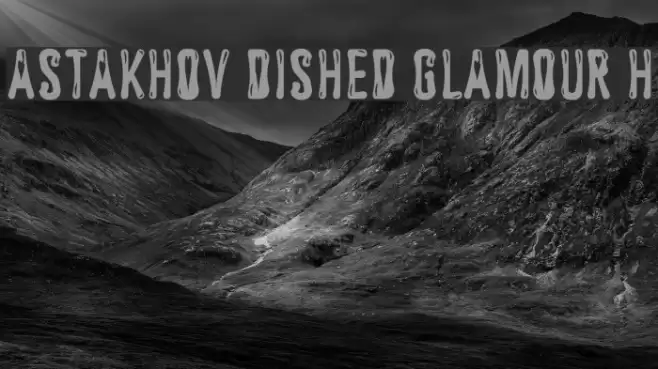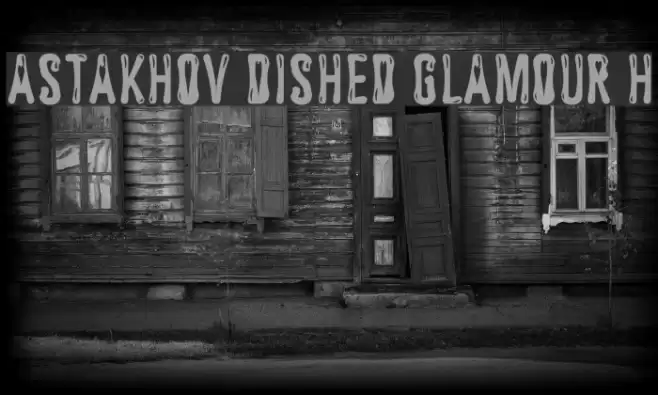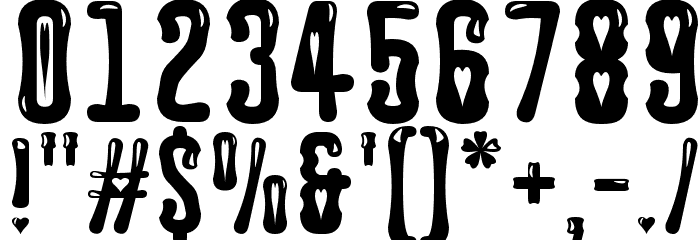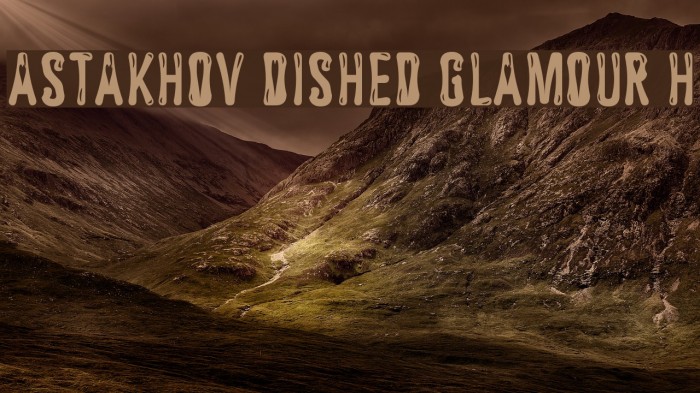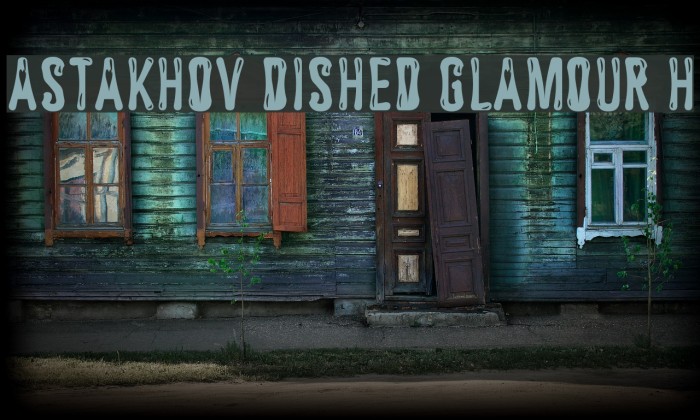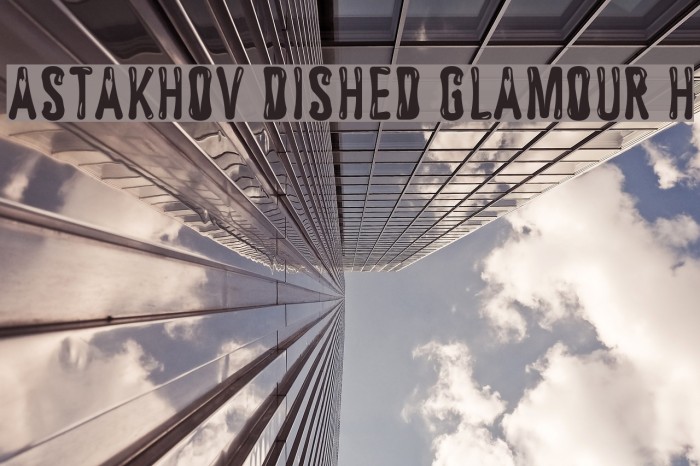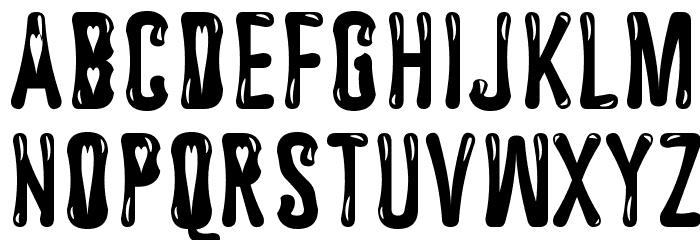
Astakhov Dished Glamour H Font
Astakhov Dished Glamour H Description
This font features a bold and dramatic style with a unique, liquid-like appearance. The characters have a flowing, organic quality, with thick strokes and smooth curves that give it a dynamic and eye-catching look. The uppercase and lowercase letters maintain a consistent style, with the uppercase being slightly more pronounced. Numbers and special characters are designed to match the overall aesthetic, making them stand out with their bold presence. The font's playful yet sophisticated design makes it suitable for creative projects that require a strong visual impact.
A bold, liquid-like font with a dynamic and eye-catching style from Uncategorized fonts.
- Proposed Projects: Ideal for posters, album covers, branding, and any project needing a bold, artistic touch.